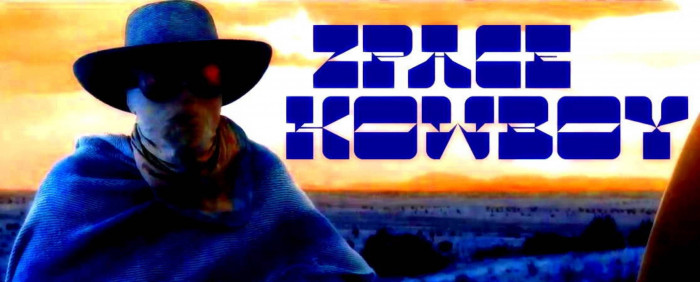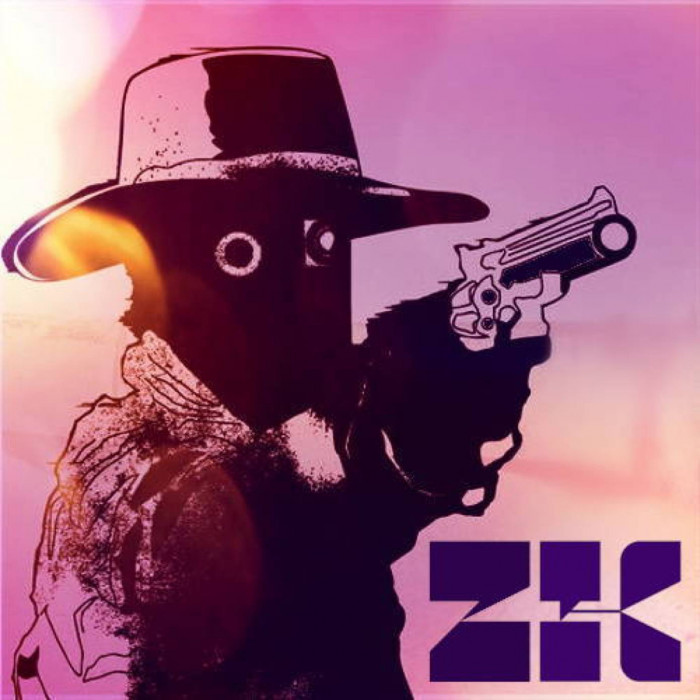
How perfect!
A beautiful new take on the western style. The angled shapes that connect the heavy serifs give this a fresh dynamic and make it stand out.
Very nice unusual design. Thanks for the Cyrillic alphabet in it. But there is a small mistake in it - for the letter Б, the top cover usually does not differ in the ending from Г, and it must completely cover the lower part.
The twist on a classic is so well executed
@Dmitriy Sychov: Thank you very much for your comments and continuous support about the cyrillic alphabet. The different stroke of the Б was only a design election, if it disturbs the readability of the letter, I can change it.